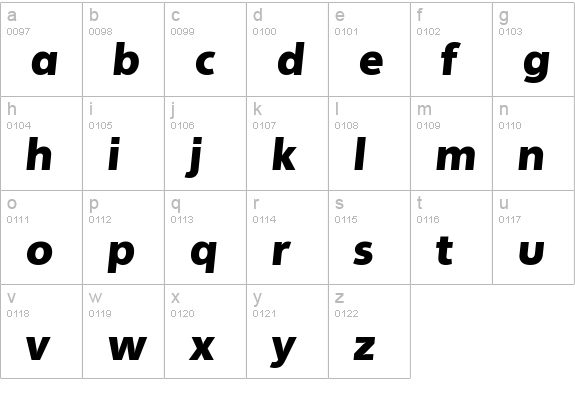
QuebecSerial-Black-Italic is a maximum-weight, dramatic, italic variant in the QuebecSerial typeface family \xE2\x80\x94 well suited to maximum-impact headlines, posters, and packaging.
QuebecSerial-Black-Italic is a stunning and stylish font that exudes sophistication and elegance. Its bold and italic design adds a touch of modernity while maintaining a classic appeal. Perfect for creating eye-catching titles, headings, and logos, this font is sure to make a statement in any design project. The best part? QuebecSerial-Black-Italic is available for free download at FontsMarket.com. Whether you're a designer looking to add a unique flair to your creations or a business owner seeking a distinctive branding element, this font is a must-have in your toolkit. Download QuebecSerial-Black-Italic today and elevate your designs with its sleek and professional aesthetic.